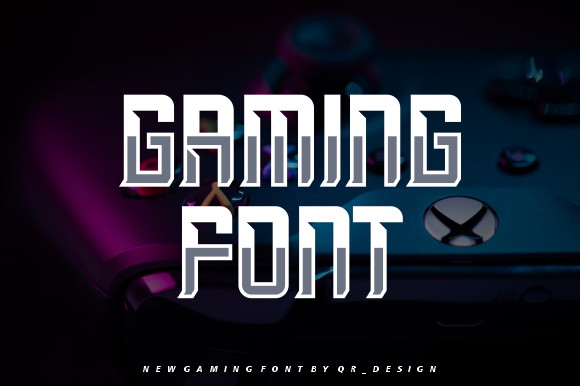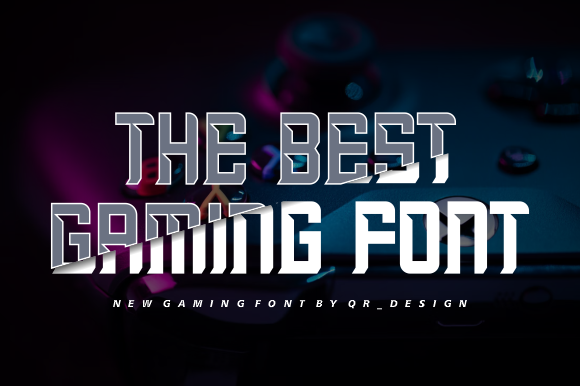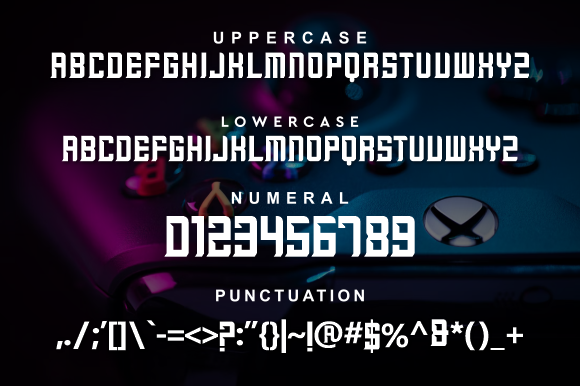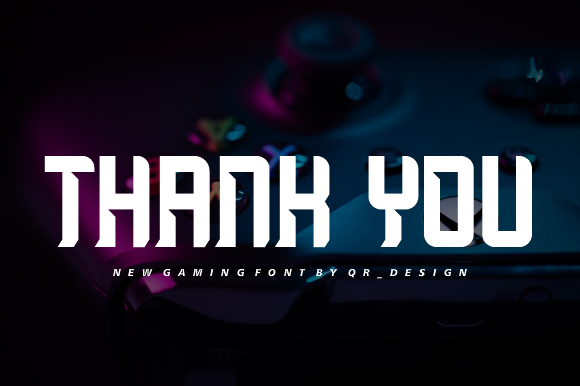
Gamingog Font: The Ultimate Modern Display Font for Designers and Crafters
In the world of design, fonts play a crucial role in conveying the tone and personality of a brand. For designers and crafters looking for a bold and authentic display font, Gamingog – Modern Font is an excellent choice. This versatile font is suitable for a wide range of branding projects, including logos, t-shirt printing, games, sports, and many more.
What is Gamingog Font?
Gamingog – Modern Font is a carefully crafted display font designed to make a statement. Its bold and authentic style makes it perfect for designers and crafters who want to add a touch of modernity to their projects. The font’s sleek lines, precise curves, and geometric shapes create a visually appealing aesthetic that is sure to grab attention.
Key Features of Gamingog Font
- Bold and Authentic Style: Gamingog – Modern Font boasts a bold and authentic style that is perfect for making a statement.
- Versatility: This font is suitable for a wide range of branding projects, including logos, t-shirt printing, games, sports, and many more.
- Geometric Shapes: The font’s geometric shapes and sleek lines create a visually appealing aesthetic.
- Easy to Read: Despite its bold style, Gamingog – Modern Font is easy to read, making it perfect for headlines and titles.
Use Cases for Gamingog Font
Gamingog – Modern Font is an incredibly versatile font that can be used in a variety of contexts. Here are some use cases where this font truly shines:
- Logo Design: Create a bold and memorable logo for your brand with Gamingog – Modern Font.
- T-Shirt Printing: Add a touch of modernity to your t-shirt designs with this font.
- Game Design: Use Gamingog – Modern Font to create engaging and immersive game experiences.
- Sports Branding: Create bold and dynamic sports branding with this font.
- Advertising: Use Gamingog – Modern Font to create eye-catching advertisements that grab attention.
Benefits of Using Gamingog Font
There are several benefits to using Gamingog – Modern Font in your design projects:
- Unique Style: This font offers a unique and distinctive style that sets it apart from other fonts.
- High Versatility: Gamingog – Modern Font can be used in a wide range of contexts, making it a valuable addition to any designer’s toolkit.
- Easy to Use: This font is easy to use and can be easily integrated into your design projects.
- Scalable: Gamingog – Modern Font is scalable, making it perfect for use in a variety of sizes and resolutions.
Tips for Using Gamingog Font
Here are some tips for using Gamingog – Modern Font effectively in your design projects:
- Use it Boldly: Gamingog – Modern Font is a bold font, so use it boldly to make a statement.
- Experiment with Colors: Try out different colors and combinations to find the perfect look for your design.
- Pair it with Other Fonts: Experiment with pairing Gamingog – Modern Font with other fonts to create a unique and visually appealing aesthetic.
- Keep it Simple: Don’t overcomplicate your design – keep it simple and let the font do the talking.
Gamingog – Modern Font is an excellent choice for designers and crafters looking for a bold and authentic display font. Its versatility, geometric shapes, and ease of use make it perfect for a wide range of branding projects. By following the tips outlined in this article, you can use Gamingog – Modern Font to create stunning and effective designs that grab attention and leave a lasting impression.